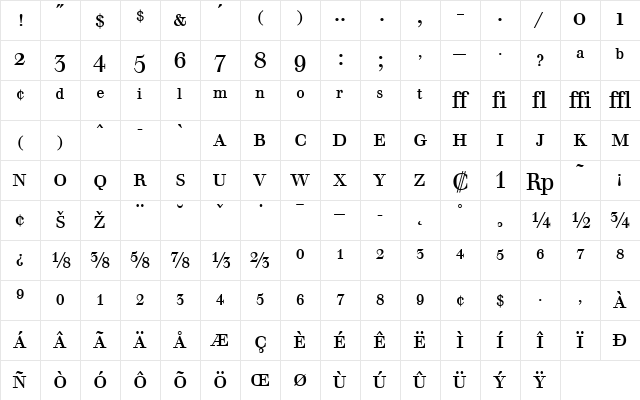
Complete BertholdWalbaumExpert-Book Book glyph index. Displaying only characters natively supported by BertholdWalbaumExpert-Book Book font.
BertholdWalbaumExpert-Book is a composed and adaptable typeface that performs quietly and consistently across a wide range of design contexts.